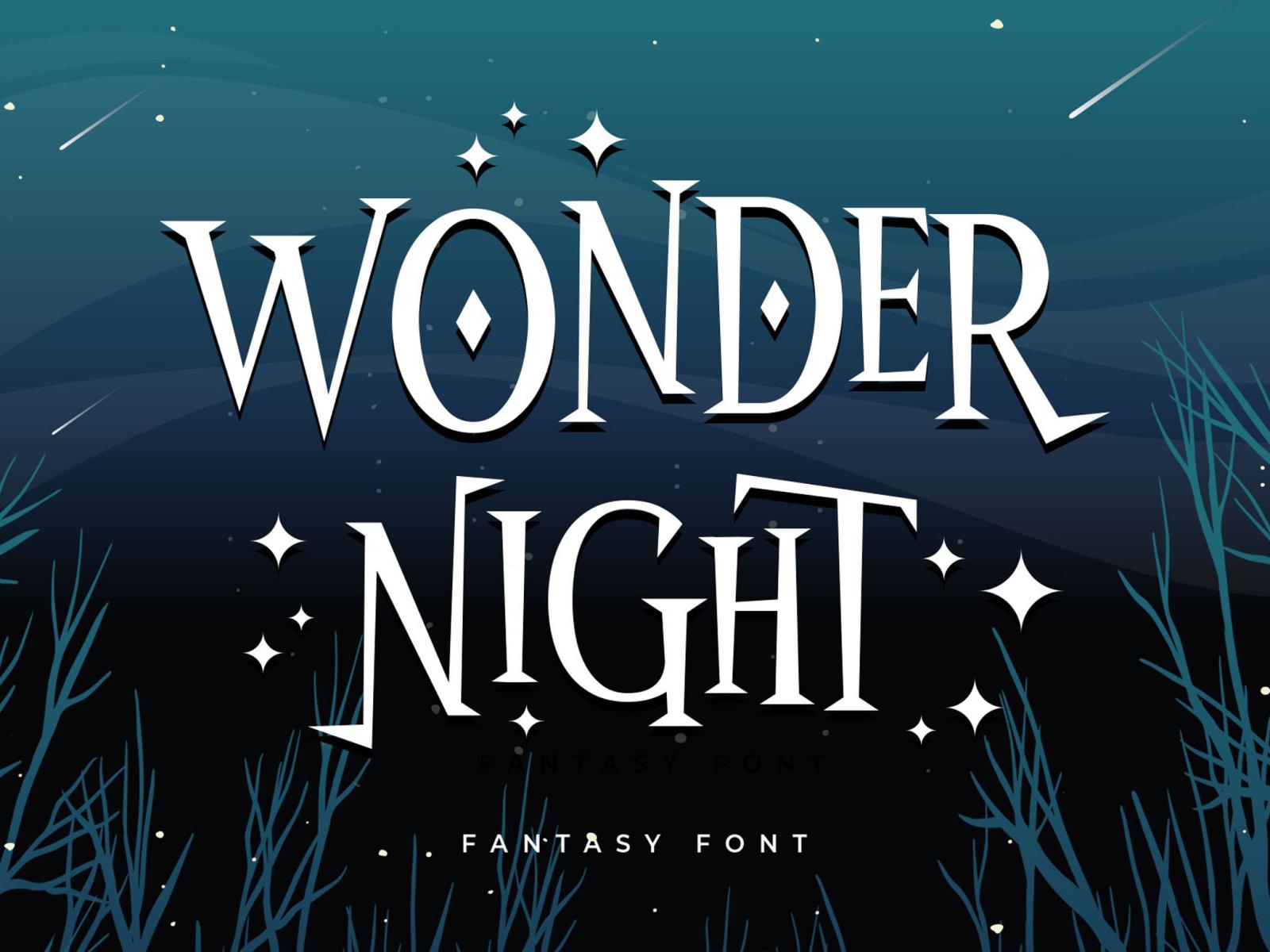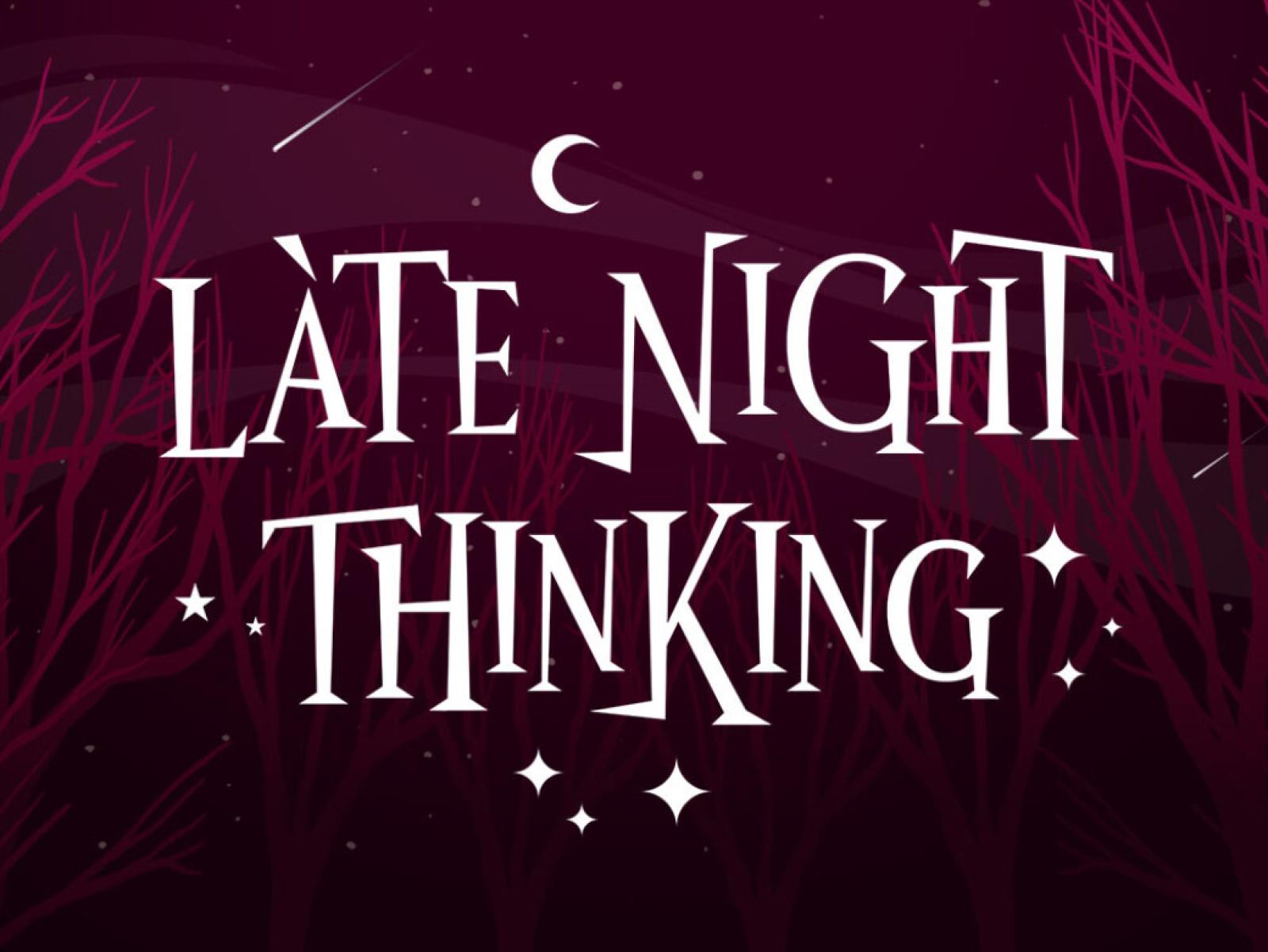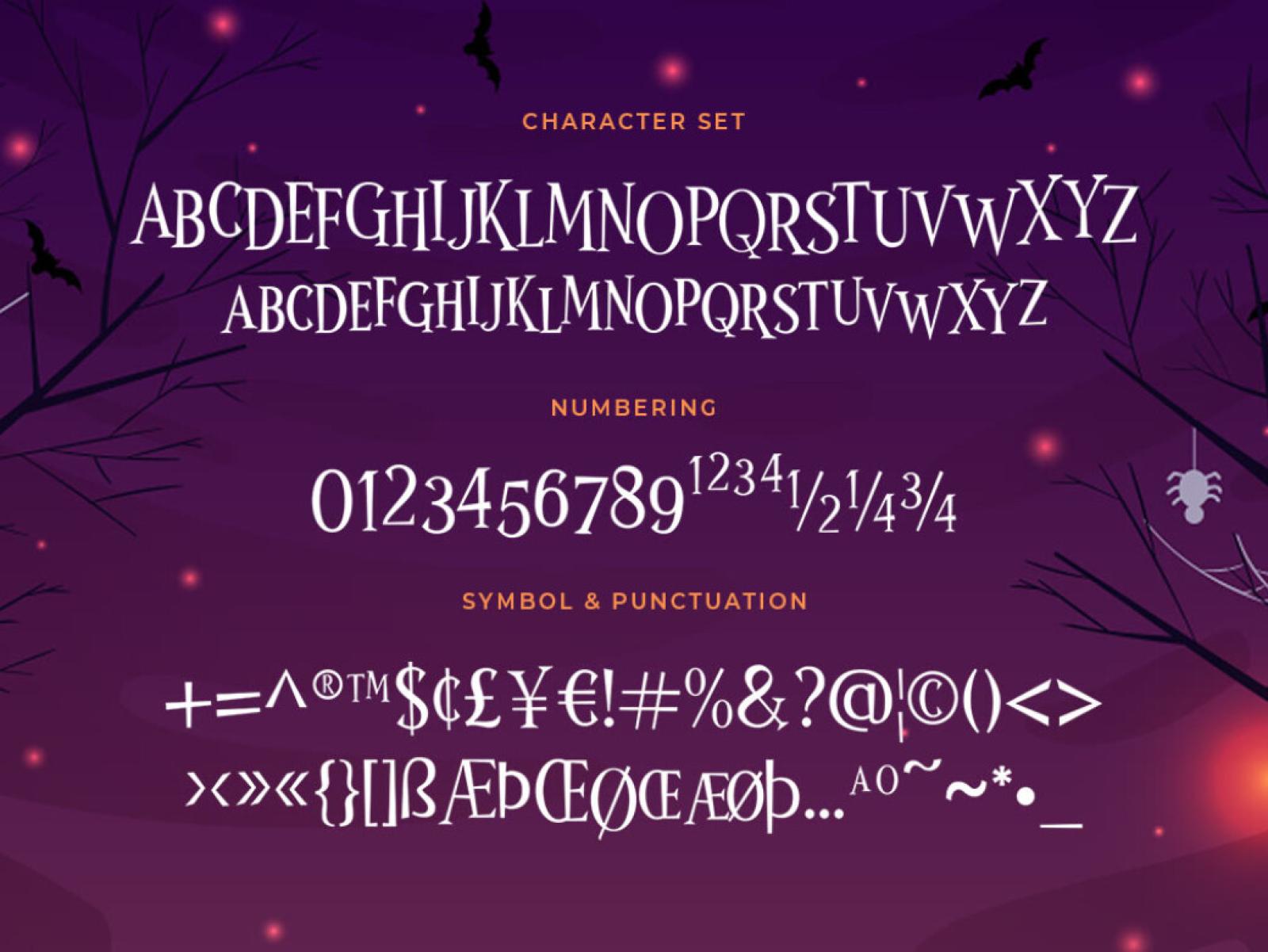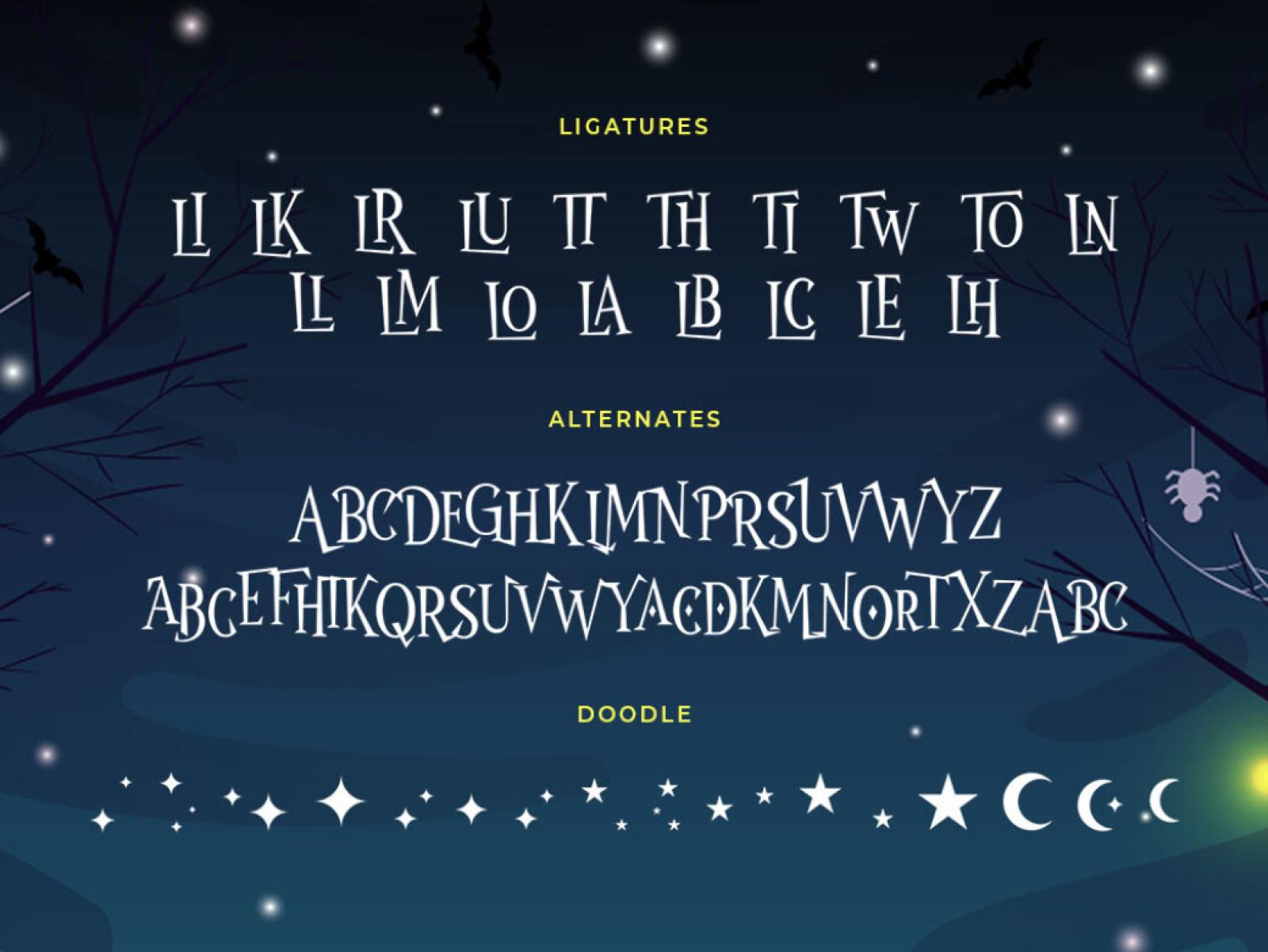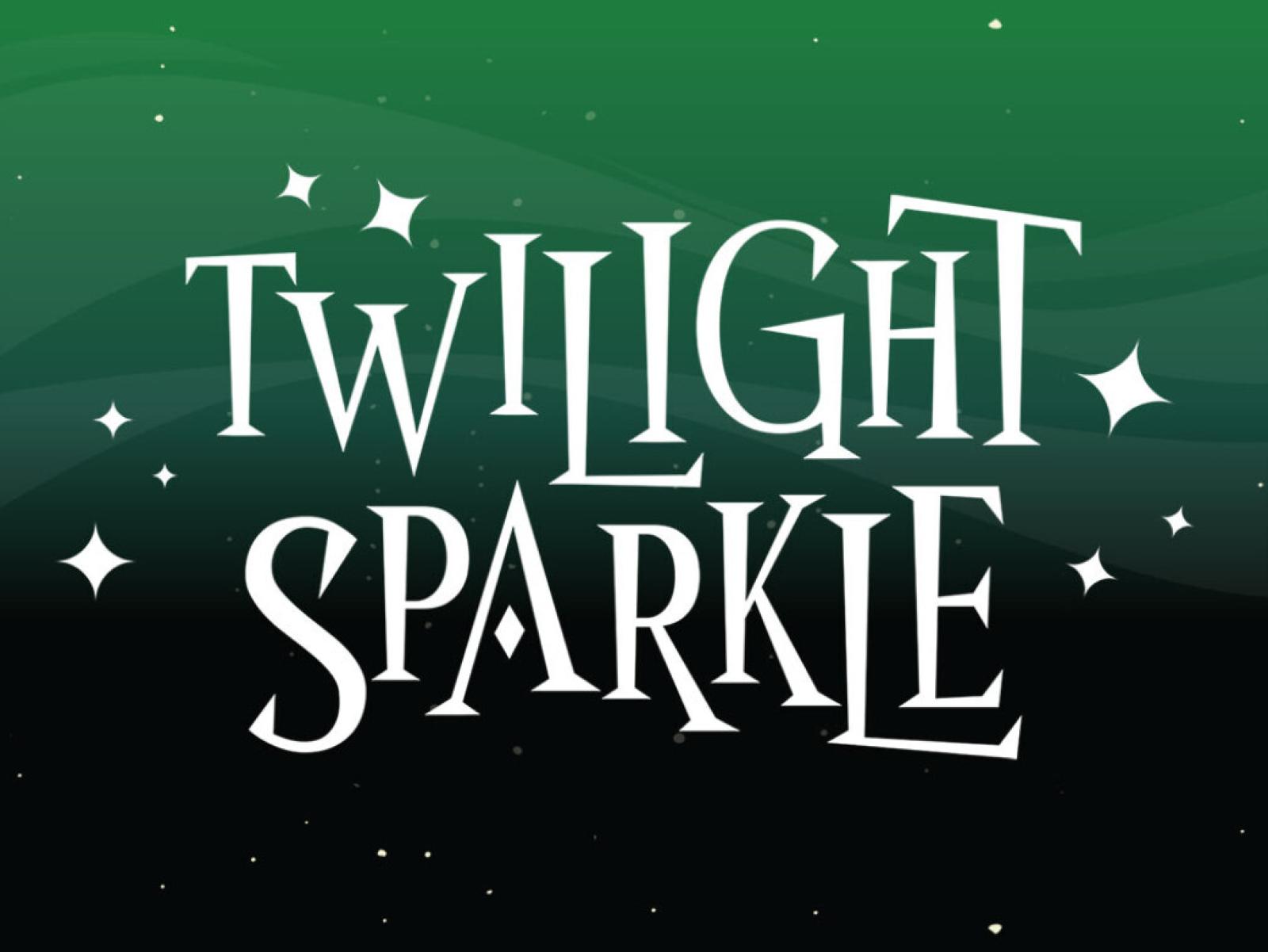
Wonder Night Display Font
Set your imagination free with Wonder Night — a fancy display font inspired by magical storybooks and horror-fantasy movies. It was created with very bouncy letterforms, turned into a readable typeface.
Wonder Night is an all-caps display font that is easy to play with. You can combine the uppercase and small caps to get a more jaunty design. Also, you'll find the font equipped with alternates, stars and moons as the decoration elements to get a more beautiful design. Wonder Night is suitable for children's merchandise, books, logotypes, T-shirts, posters, titles, quotes, and more!